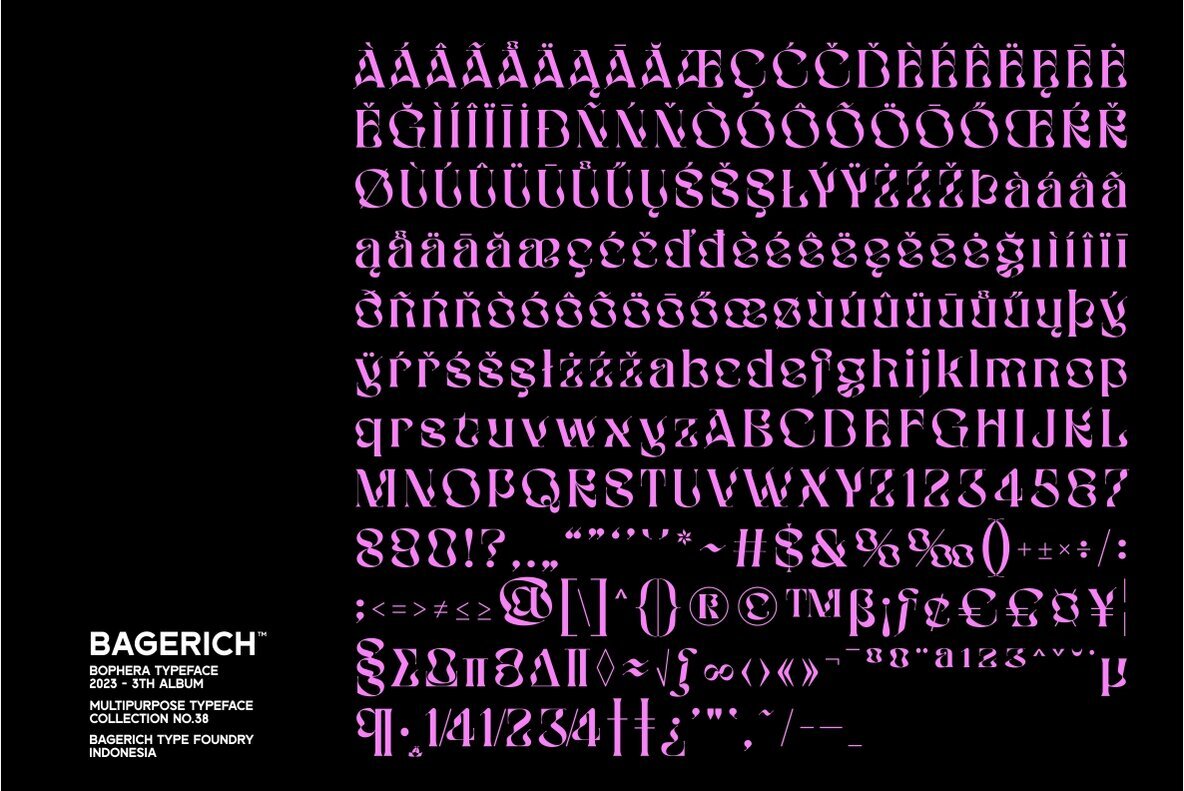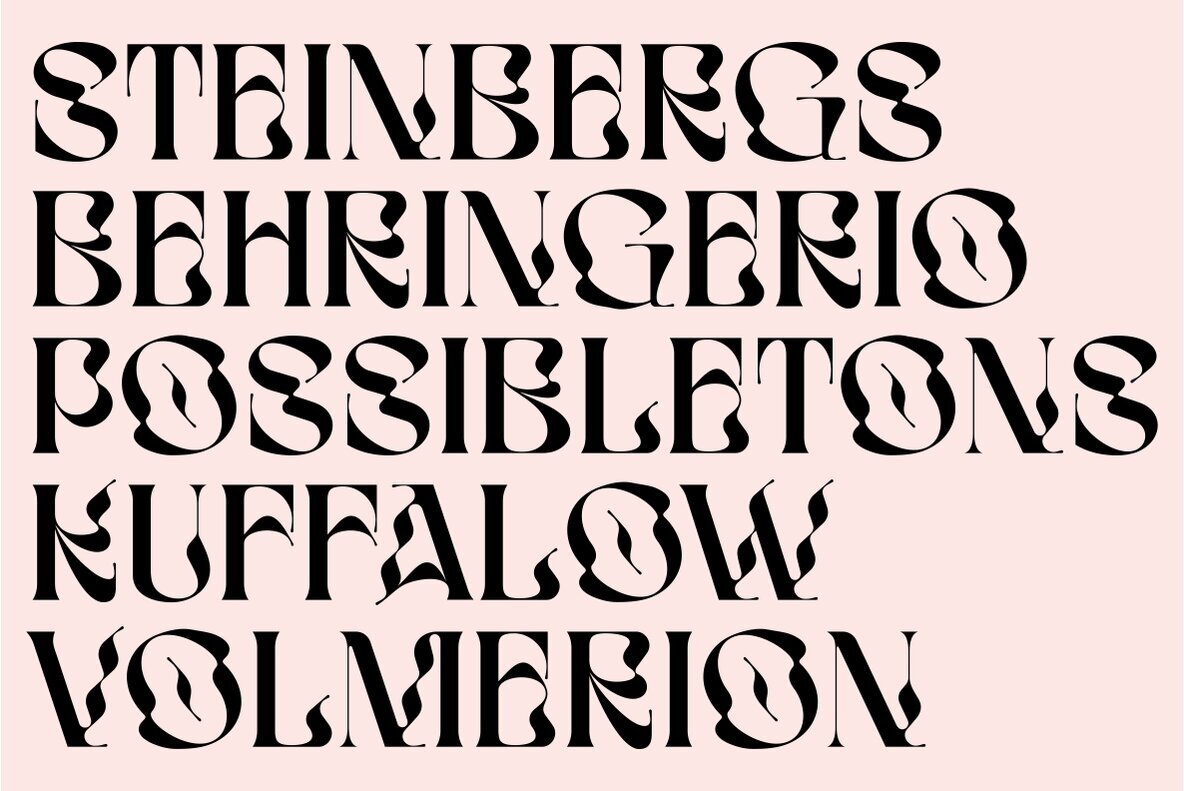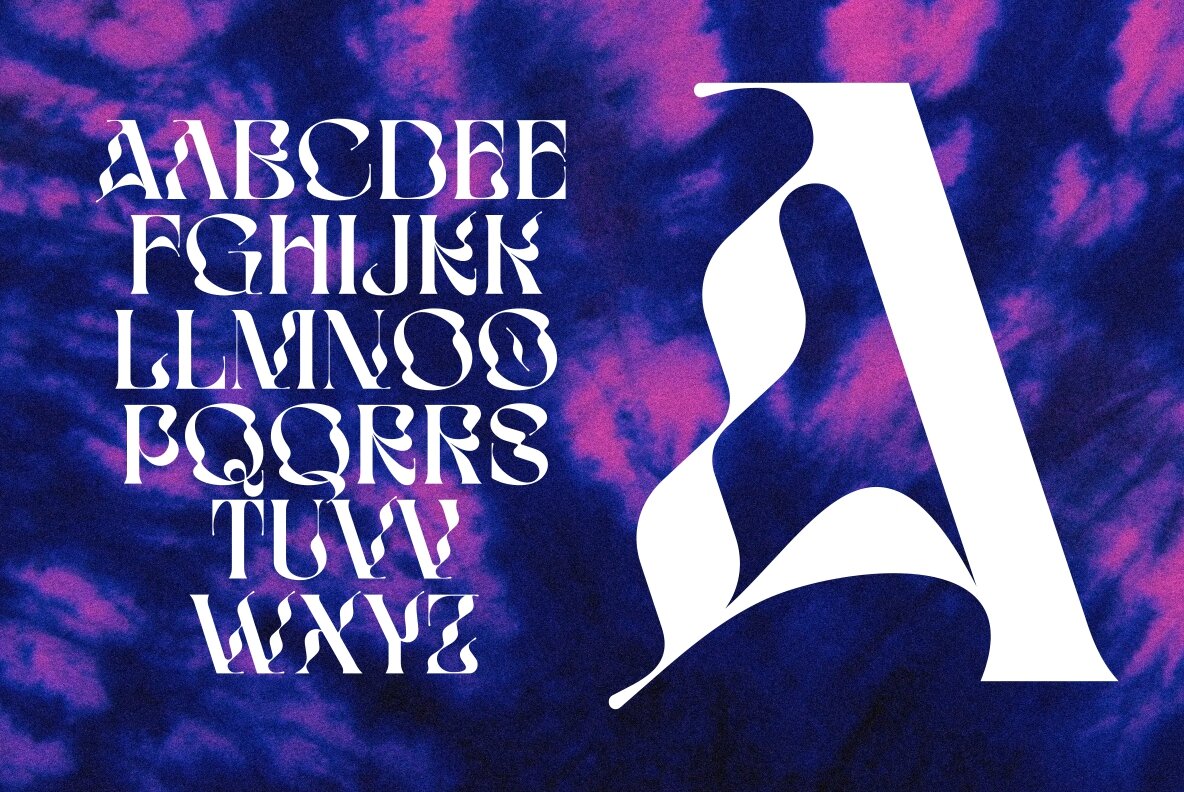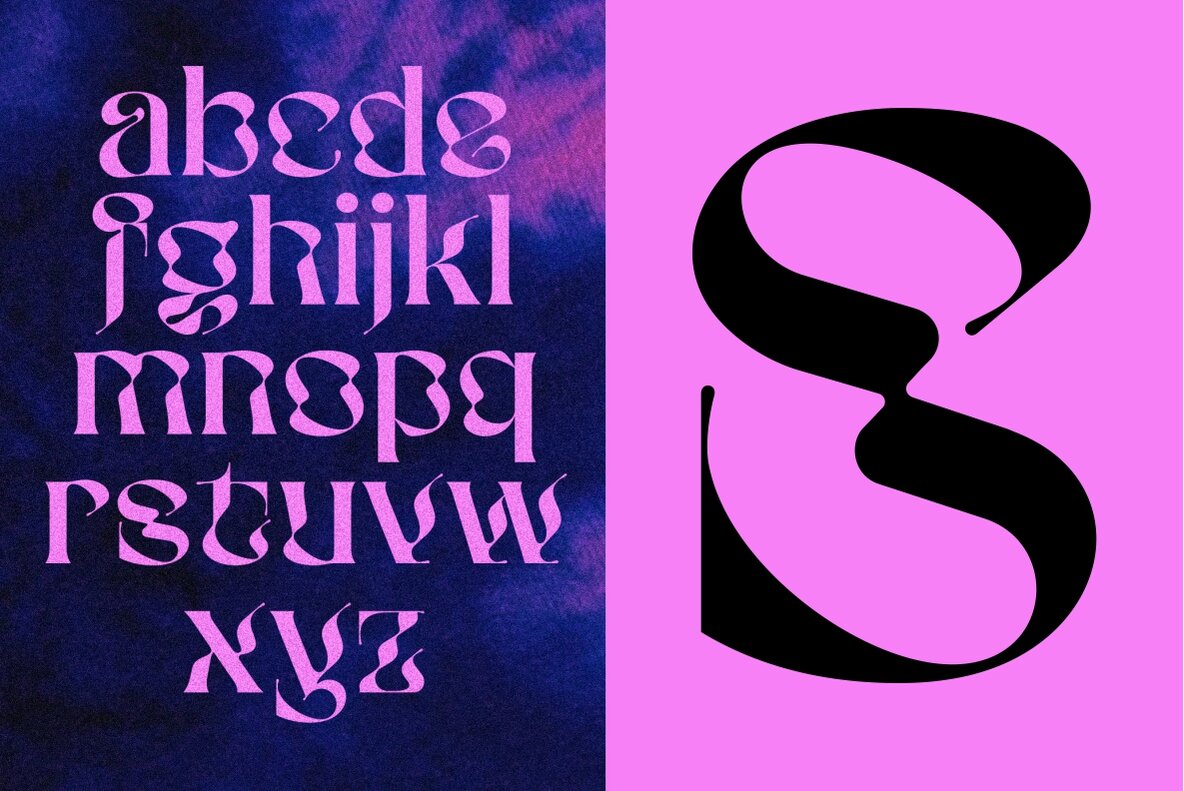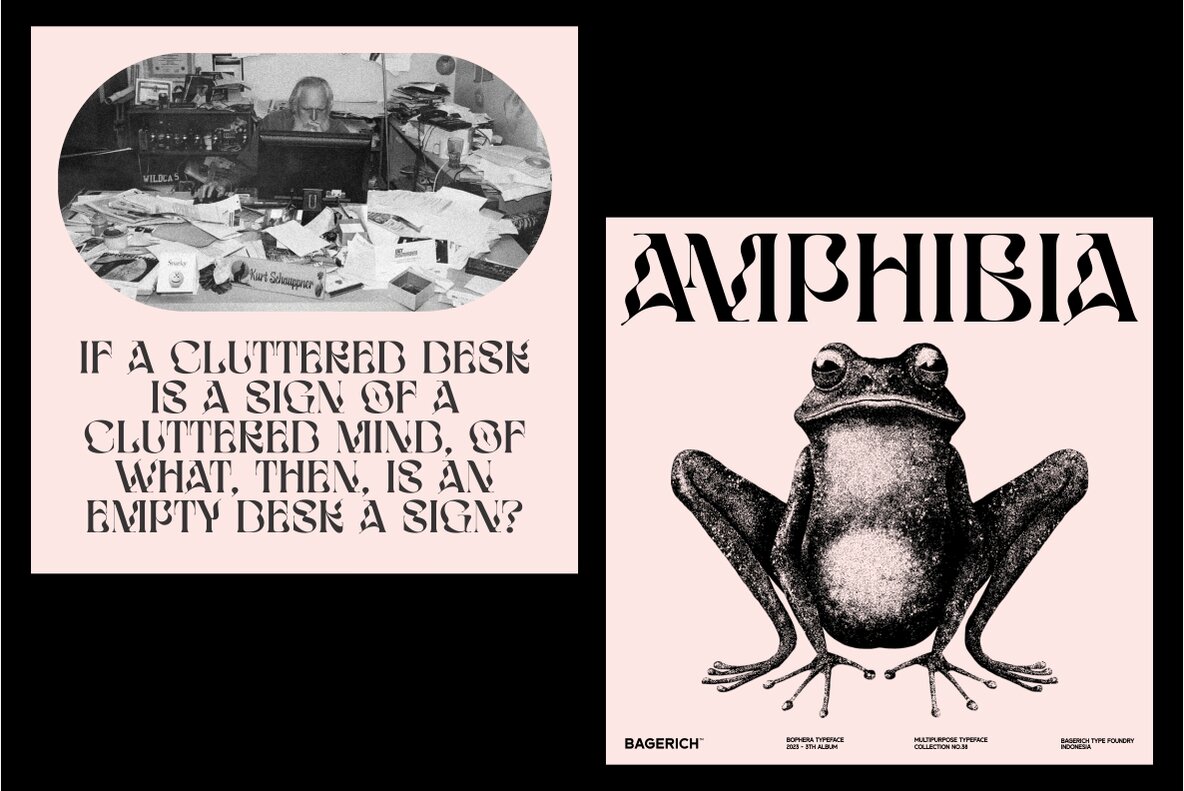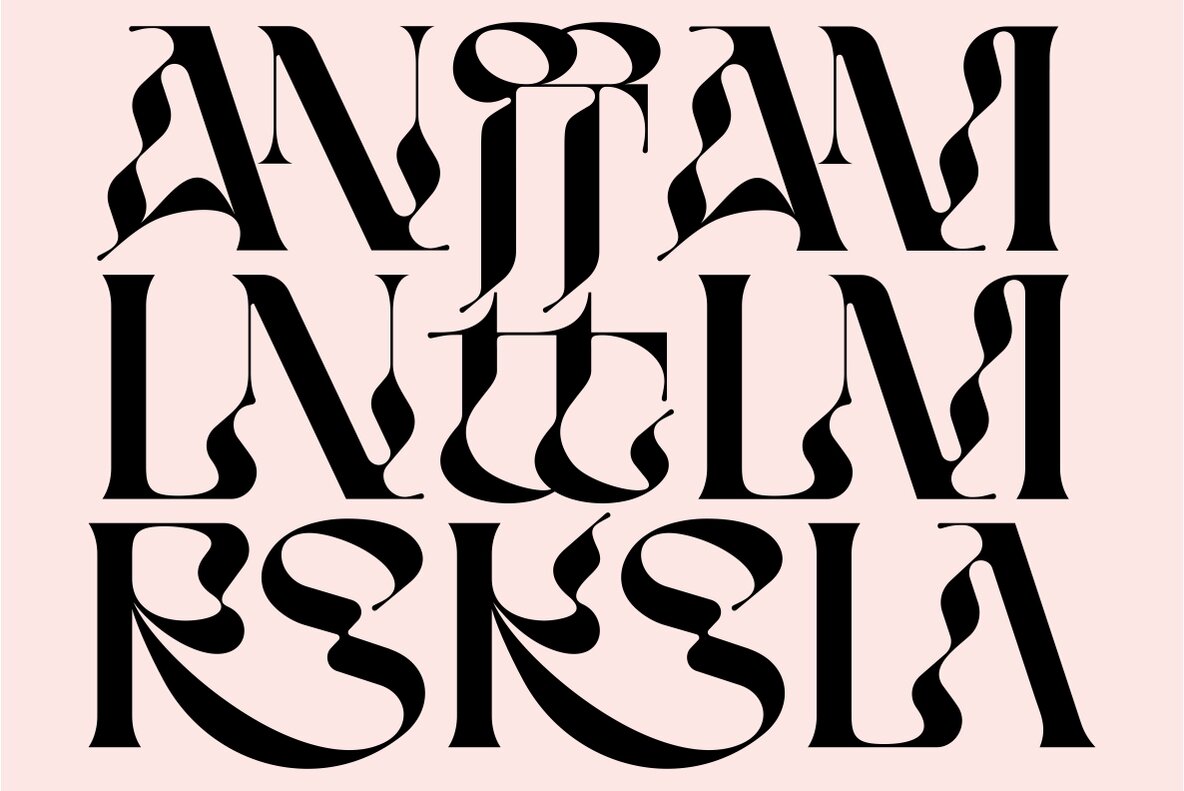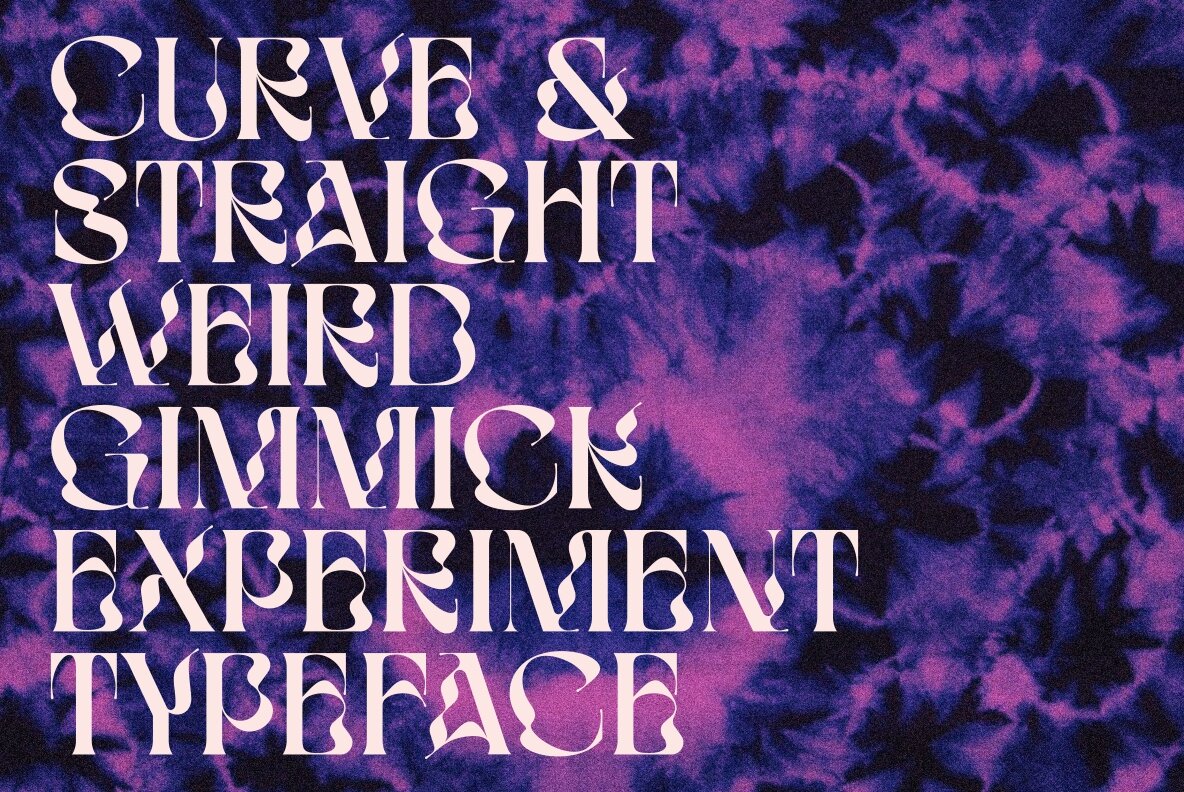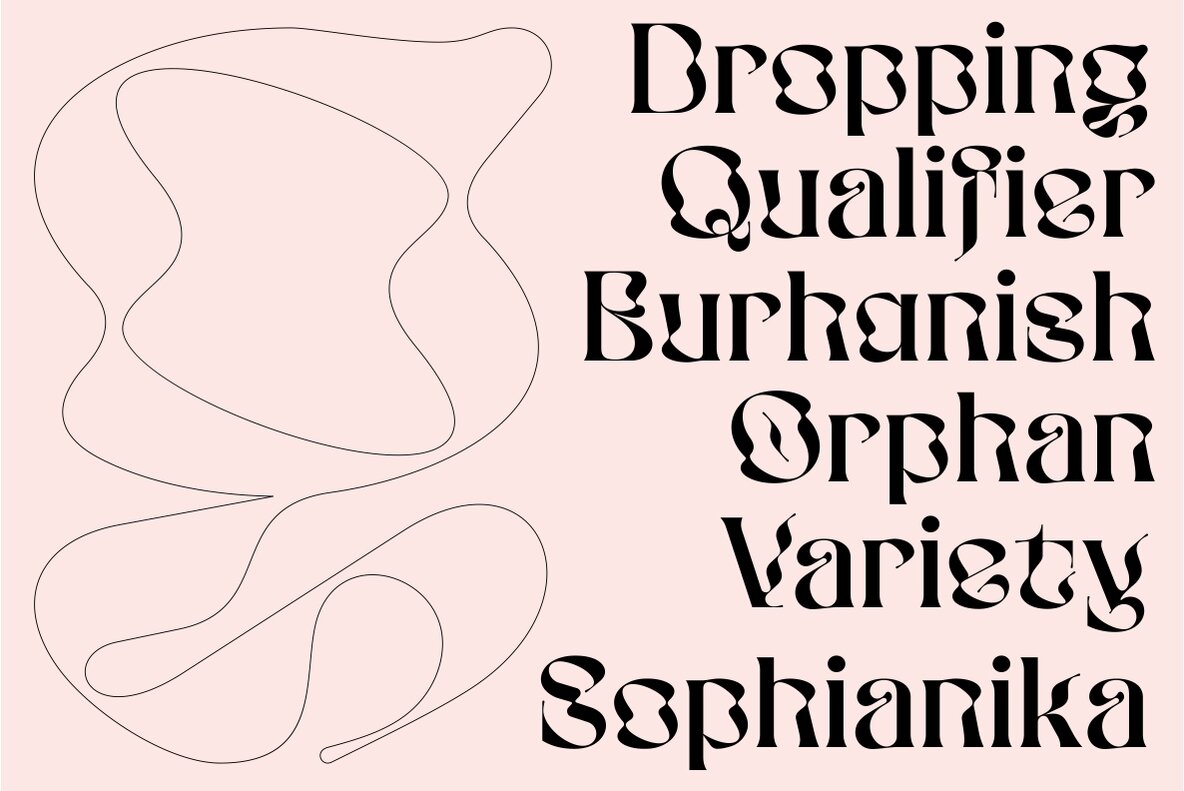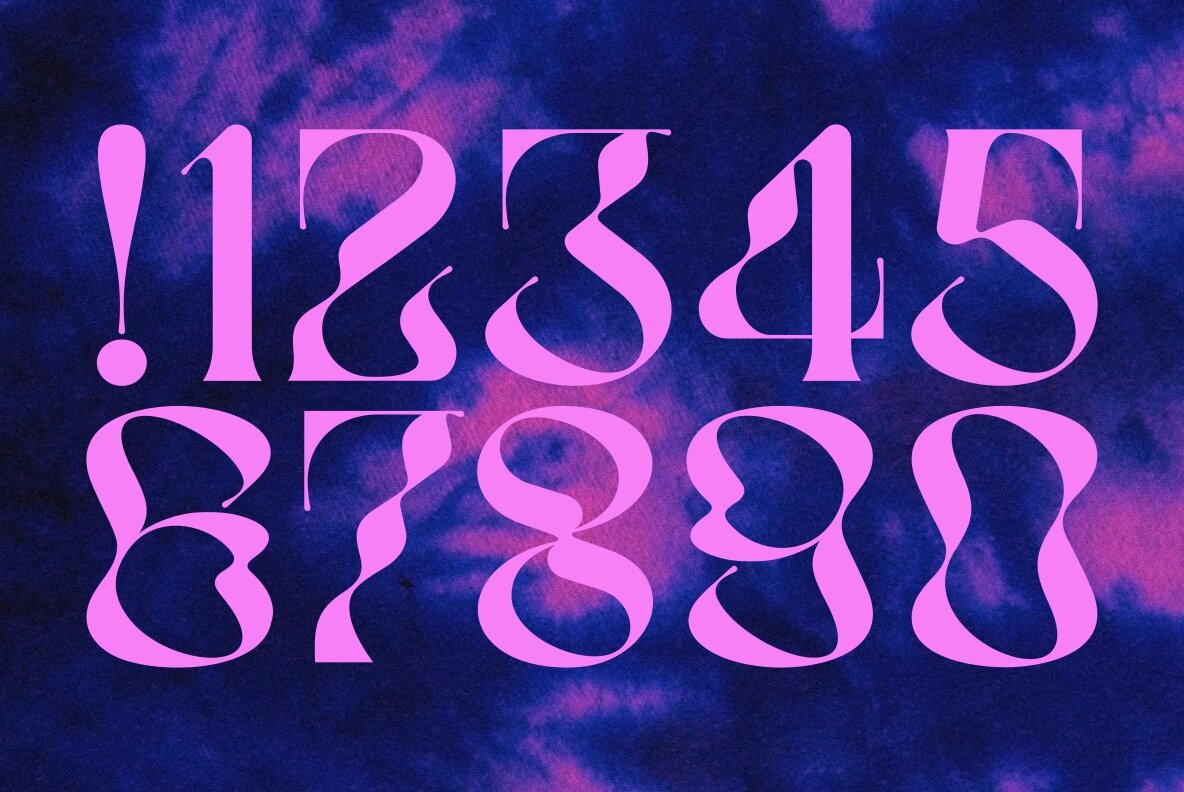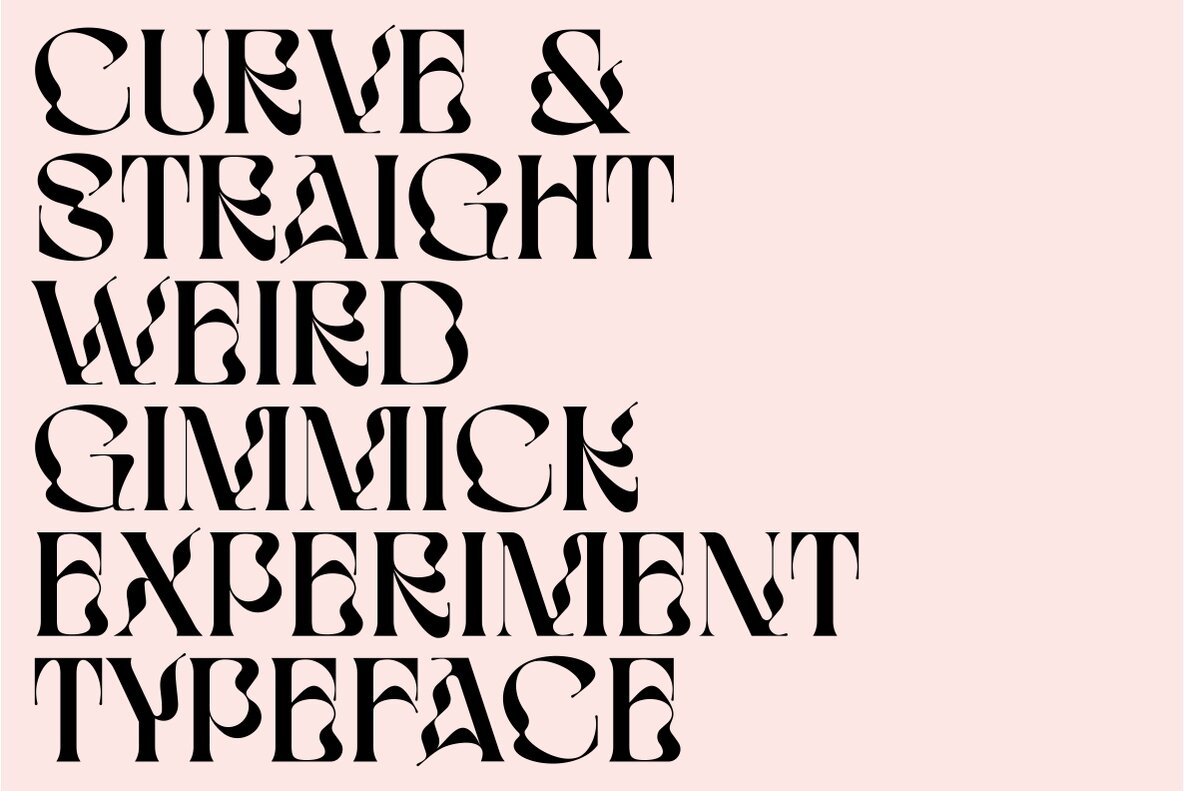
BOPHERA Font
BOPHERA
Get creative with Bophera – an art nouveau font designed by Reza Rasenda and Riska Candra Dewi! This unique font features stylistic alternates, ligatures, multilingual support and a sleek, elegant flare that makes it perfect for logotype designs, magazine layouts and any project that needs a touch of sophisticated style. Try out Bophera today to make something special!